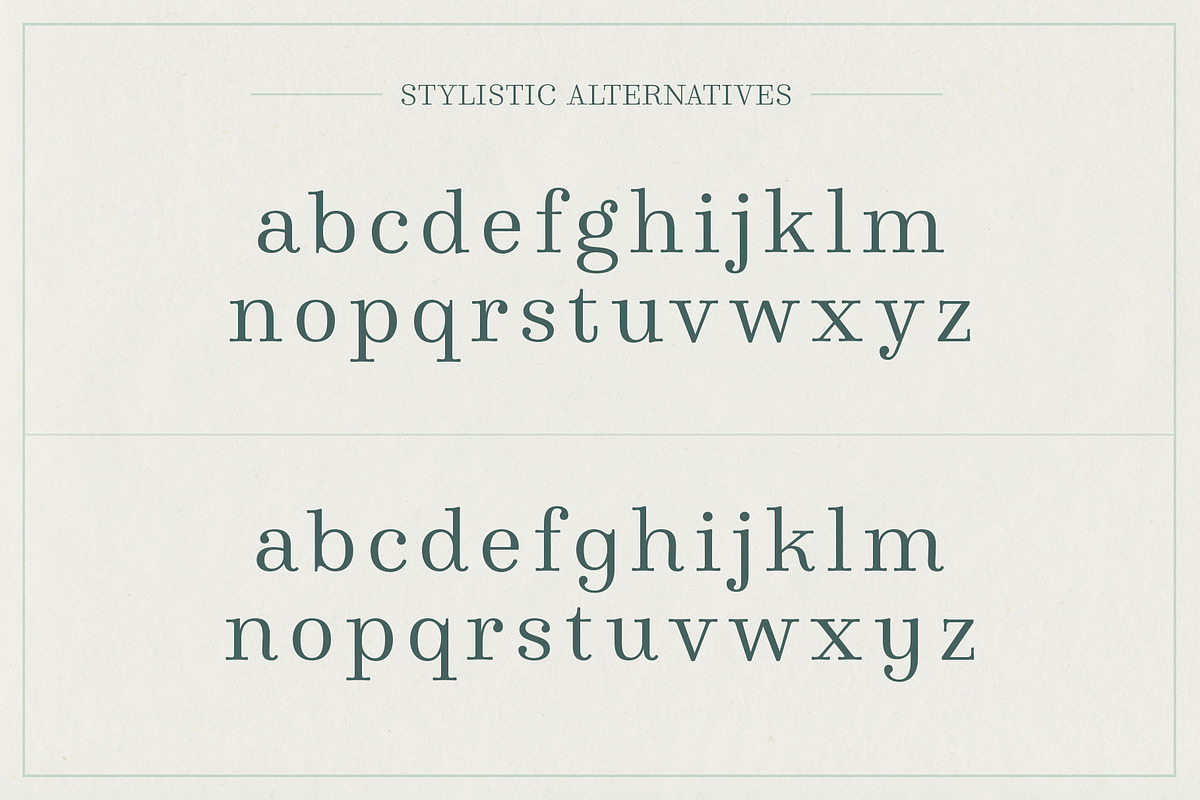
Winslow Book Regular
Winslow Book Regular is a playfully modern typeface duo. Delicate features give it a playful feel while keeping Scotch Modern attributes of vertical stress, bracket serifs and ball terminals. Winslow was designed to be a perfect typeface for text and display purposes.
Because optionality is always fun, Winslow Book comes with an array of alternative features that add and extra bit of flare. From stylistic alternatives to tail serifs (in K, k, d, h, m, n) to complete new character designs (for g, y and &) a designer can choose between which style they need for any project. Discretionary ligatures also create alternatives to all capital letter combinations.